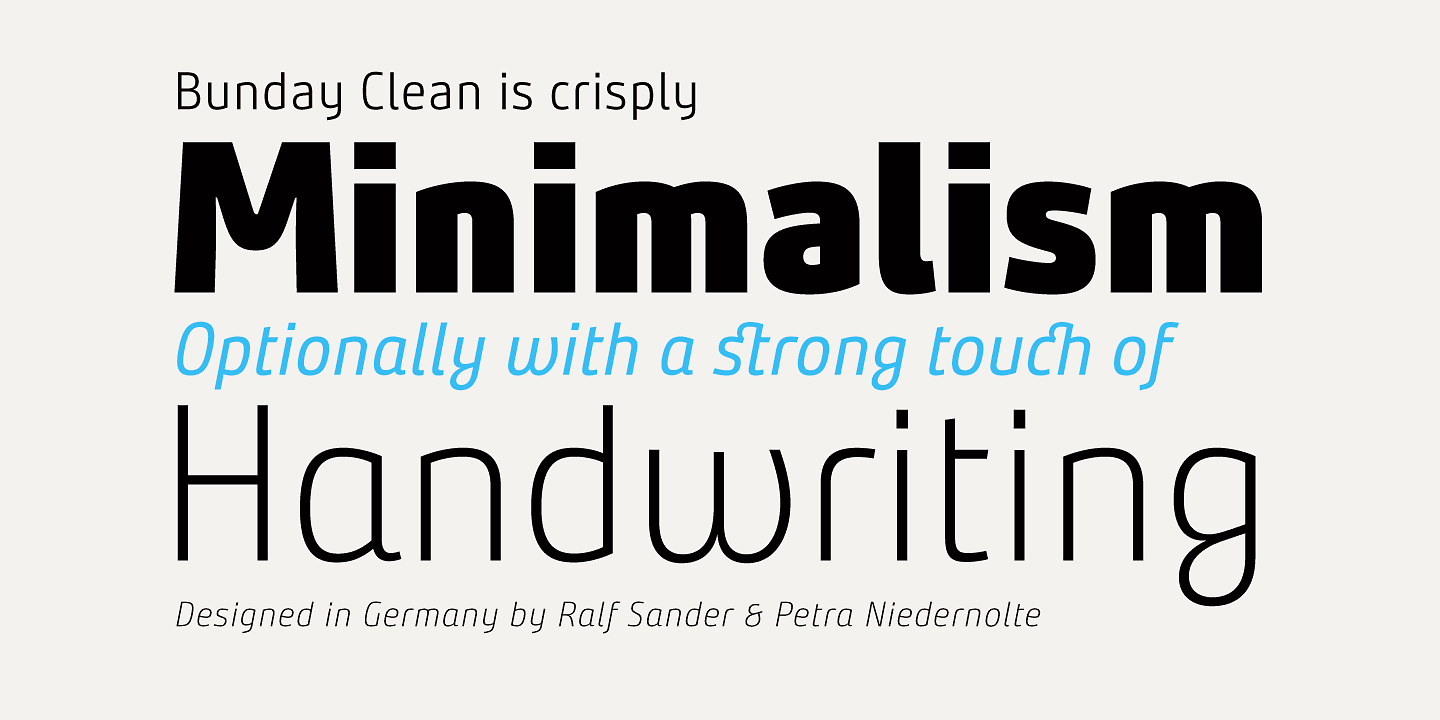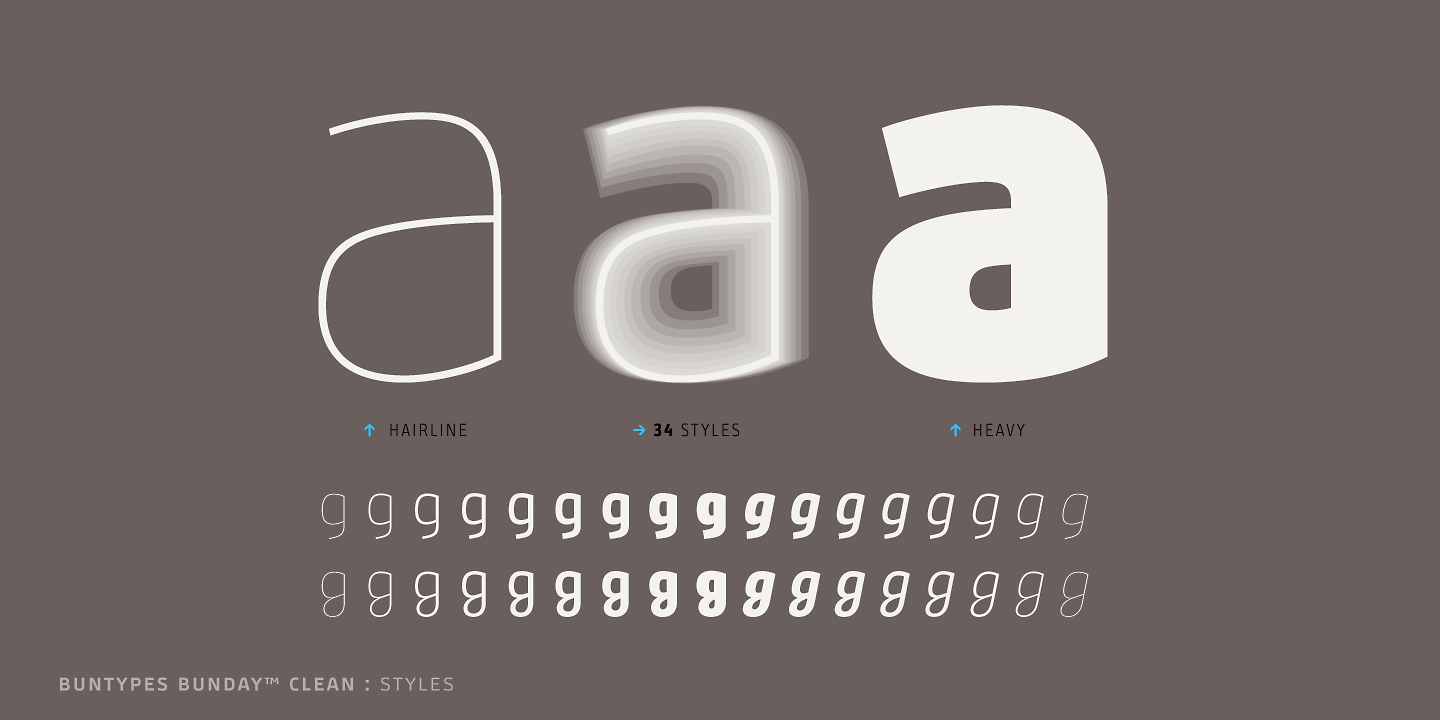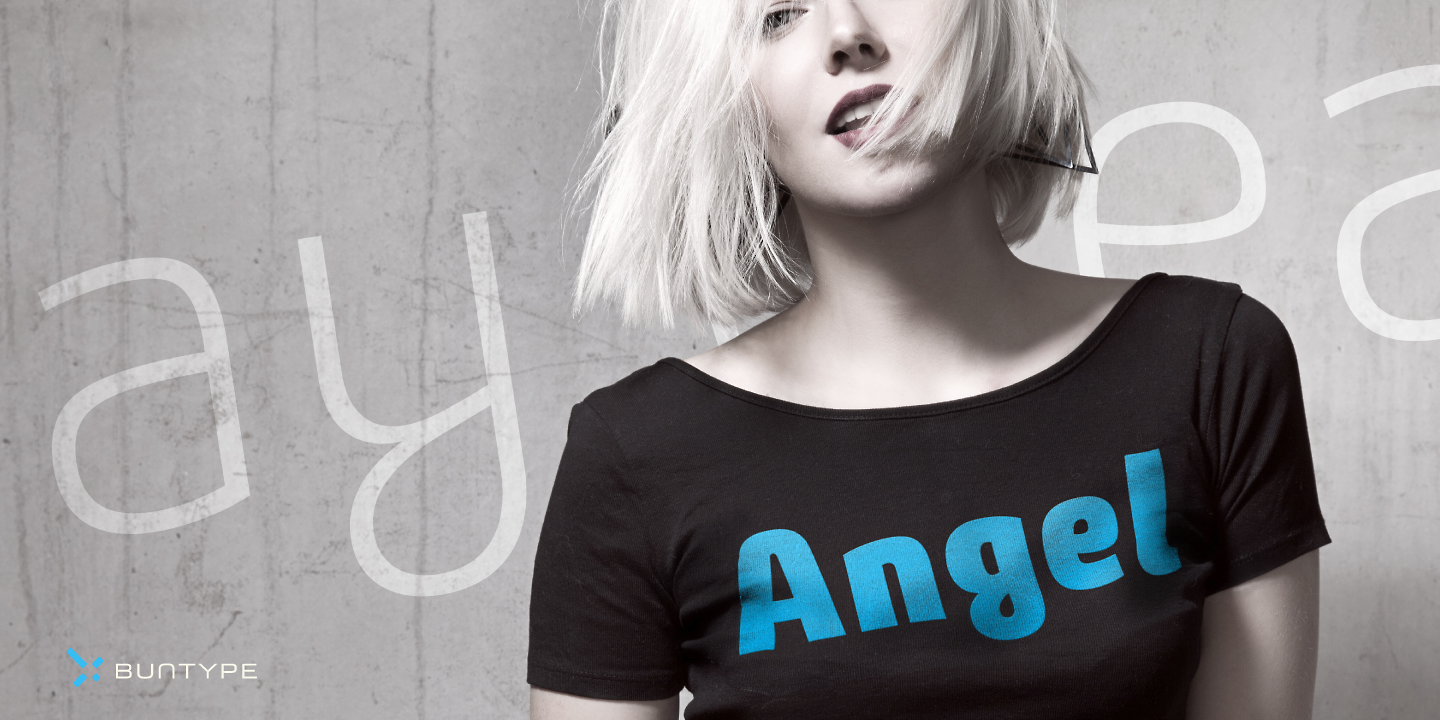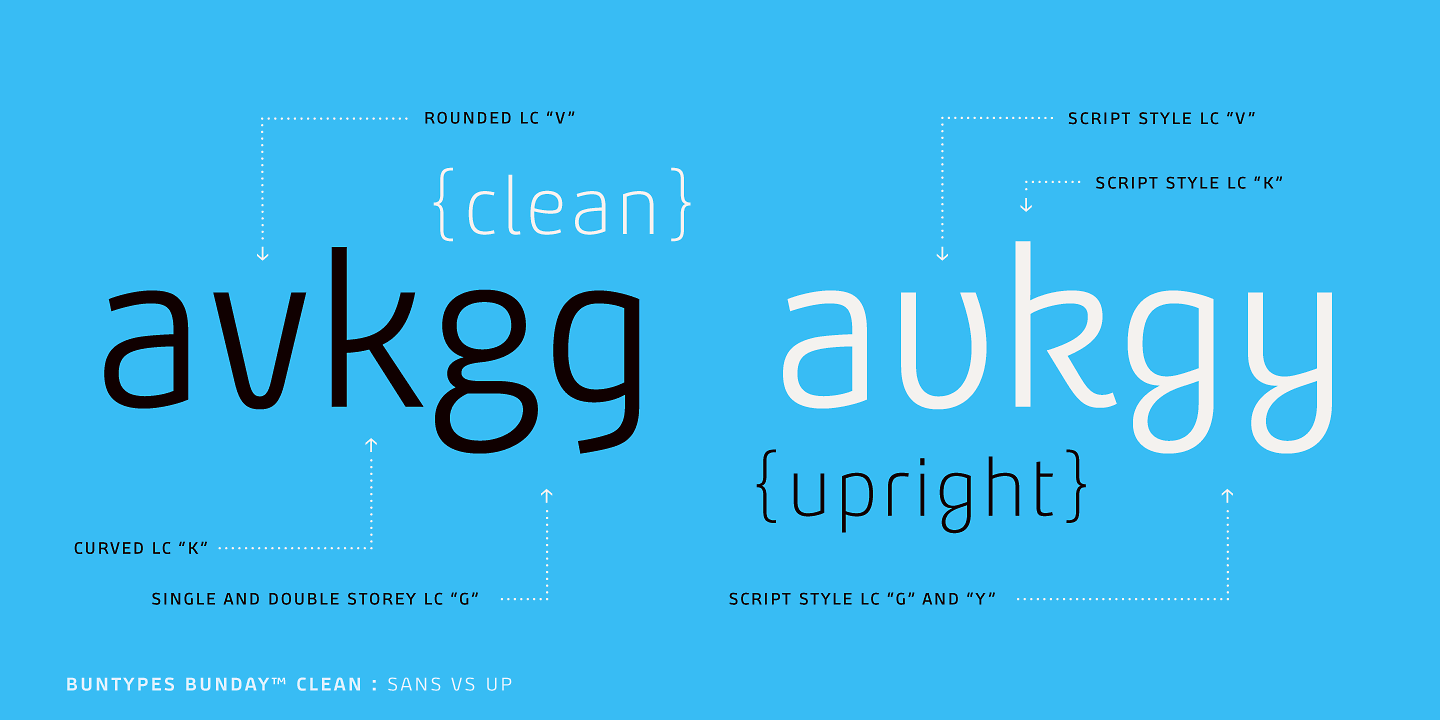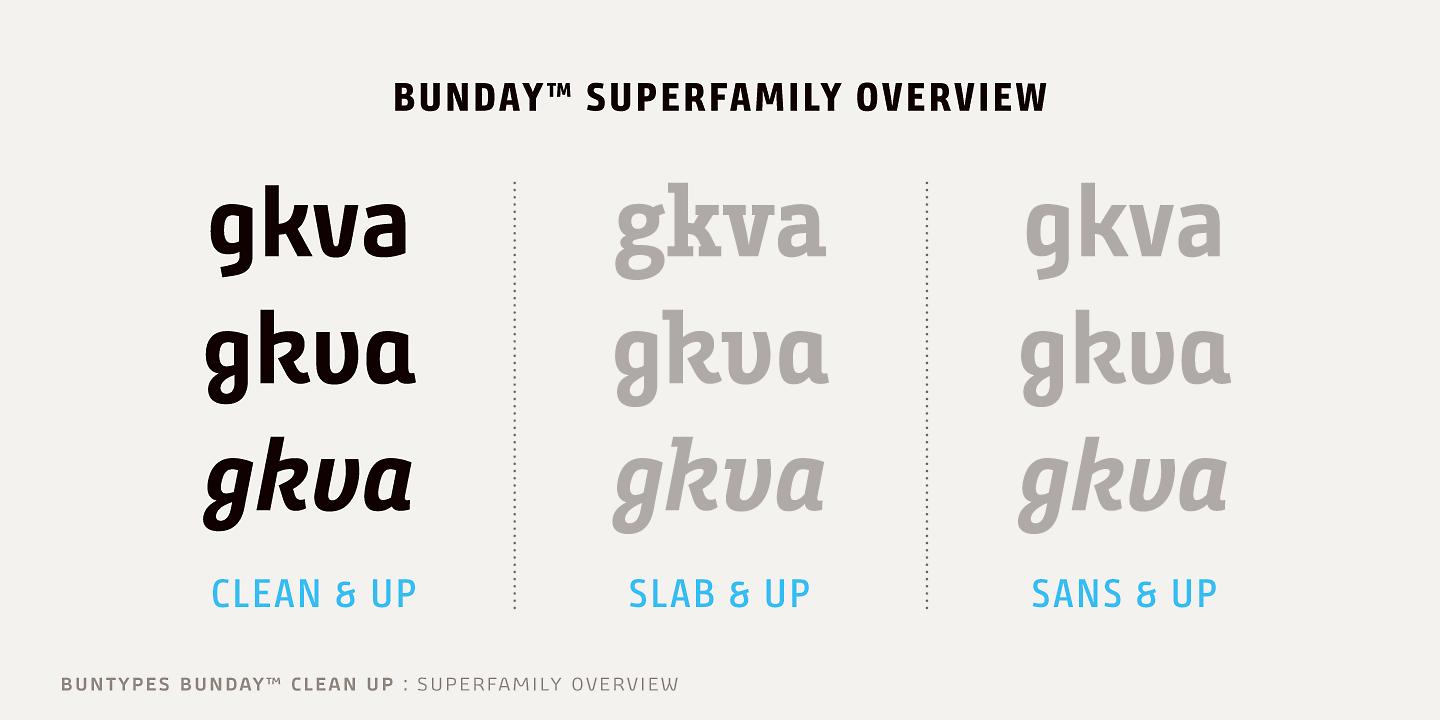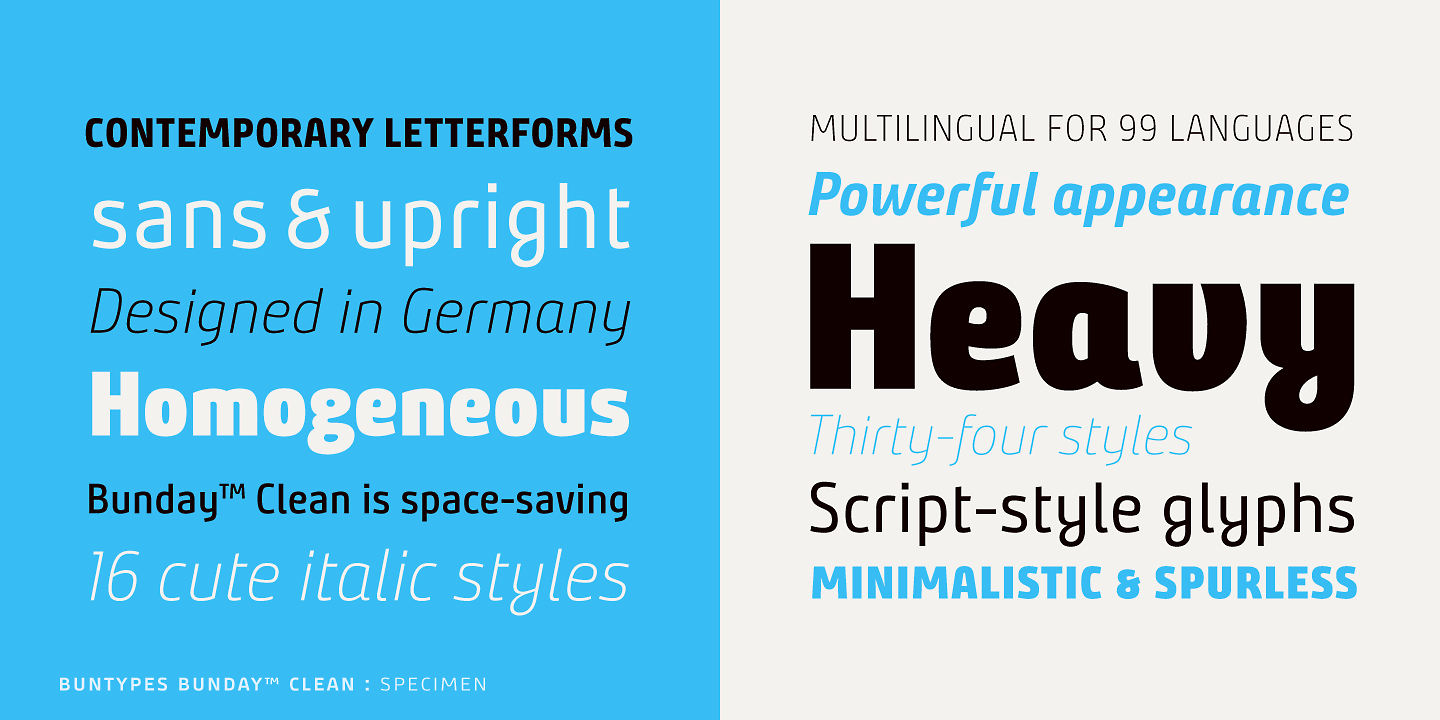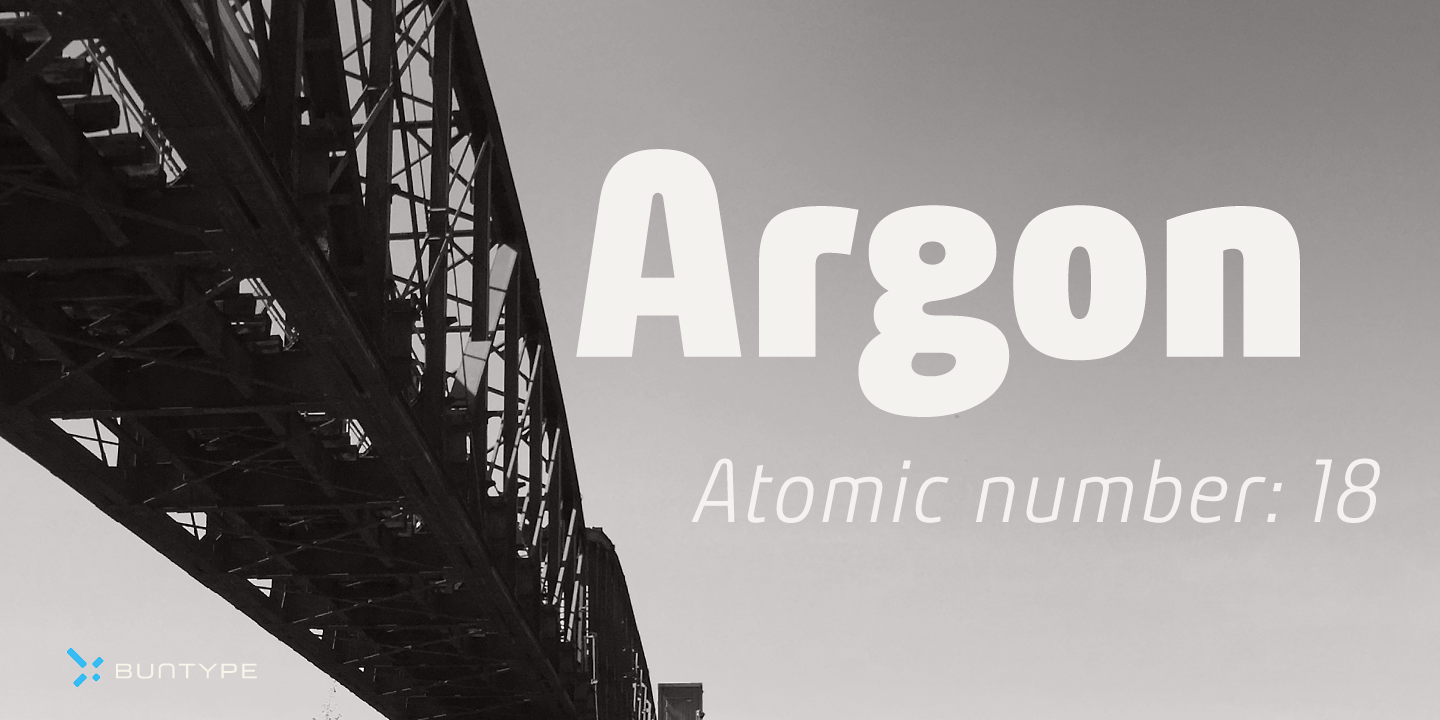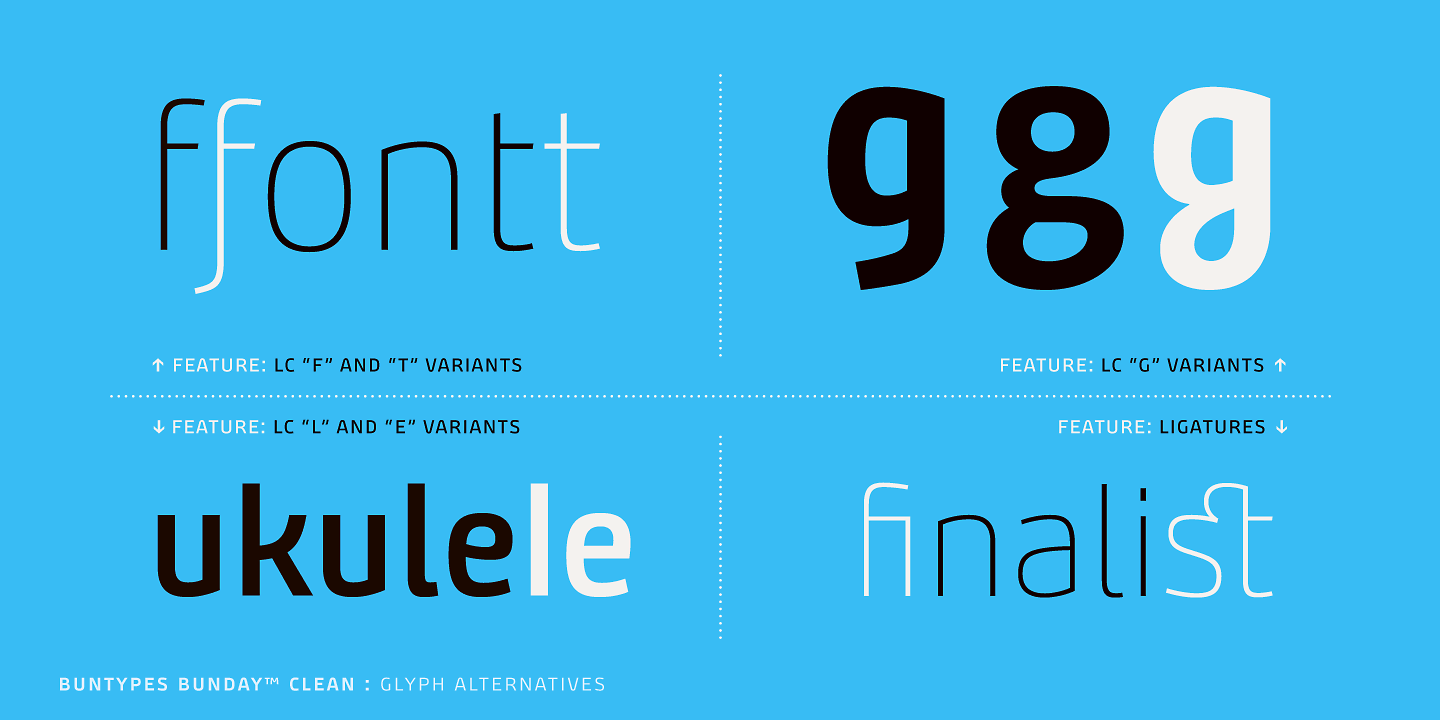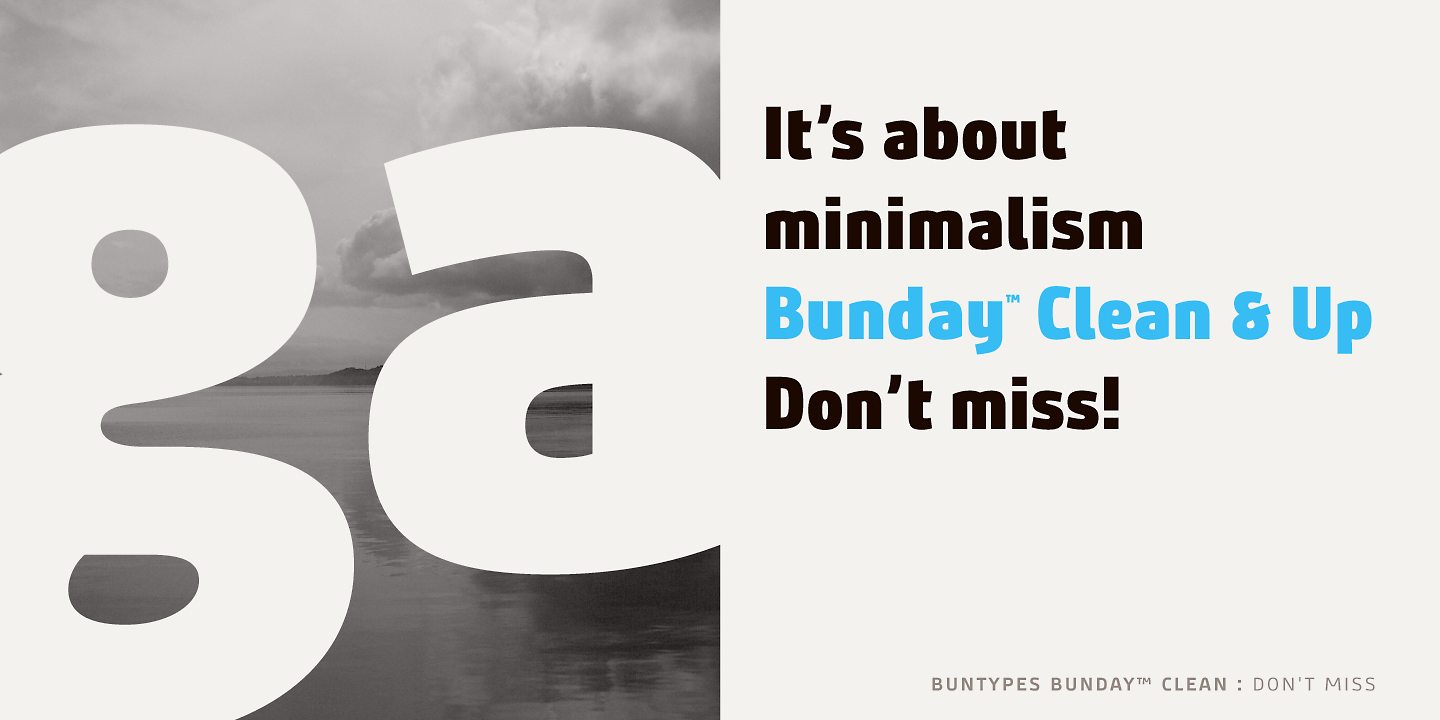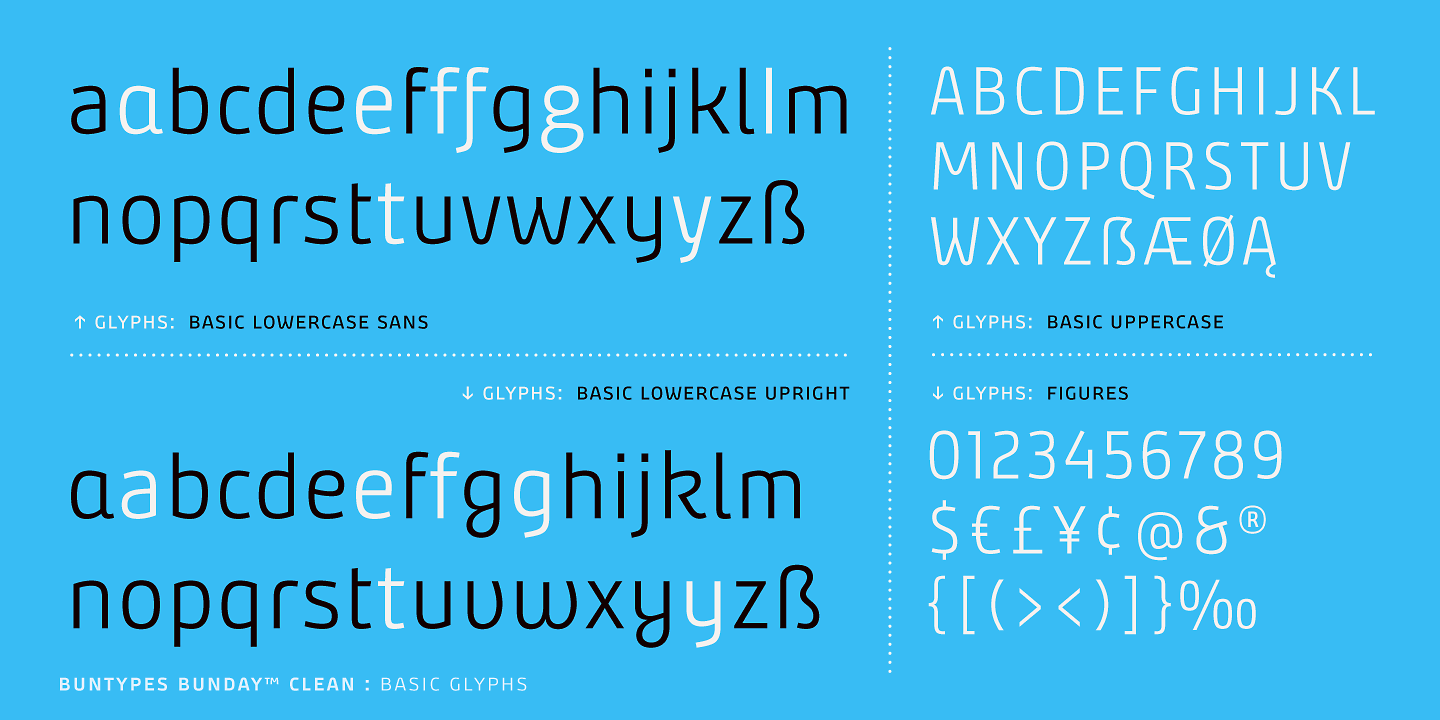
Created by Buntype, Bunday Clean is a minimalist and friendly font family with different moods. It drops everything unnecessary like spurs and ears and appears crisp and contemporary with a slightly squarish touch.
Bundayâ„¢ Clean is space-saving and creates a homogenous text color with good legibility. The font was manually hinted and contains extensive handcrafted kerning tables to ensure perfect appearance in all media. Check the pro version here and download the free version – Bunday Clean Bold, Semi Bold Up, Semi Ligh Up, Clean Thin – beneath the previews. Free for personal use!